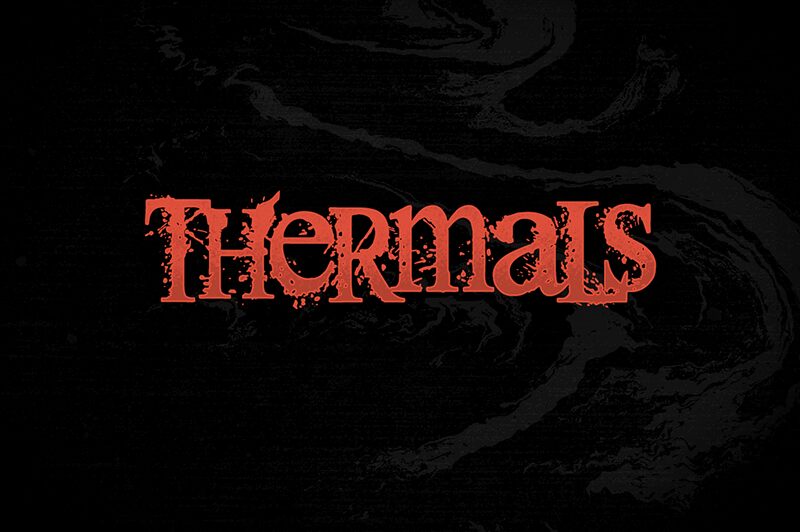
Thermals
Thermals font by The Branded Quotes is a scary, grunge-textured display typeface that exhales horror in every letter. Its structural forms feature uniqueness and distinction, meaning you can create a stand-out design whenever it is used. Get creative, and use its natural uneven appearance to deliver high-impact visuals your audience will remember.
The free display font's uses include video game covers, music album covers for bands and solo artists, horror movie titles and posters as well as video thumbnails. Clothing brand labels can also adopt it in their fashion branding for an edgy style that blends well with v-neck: tees and other items.